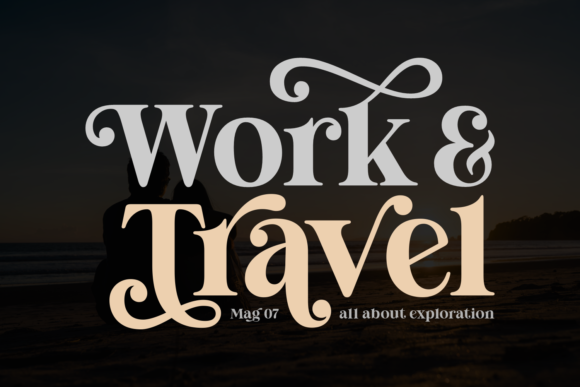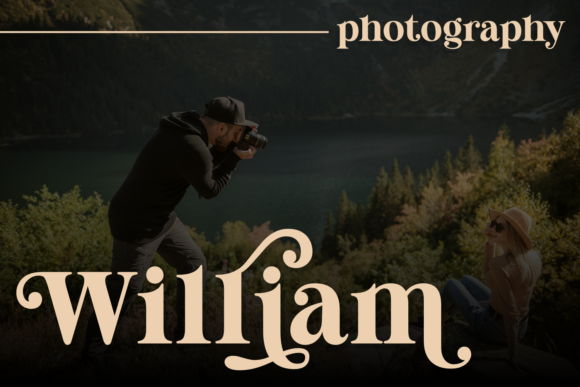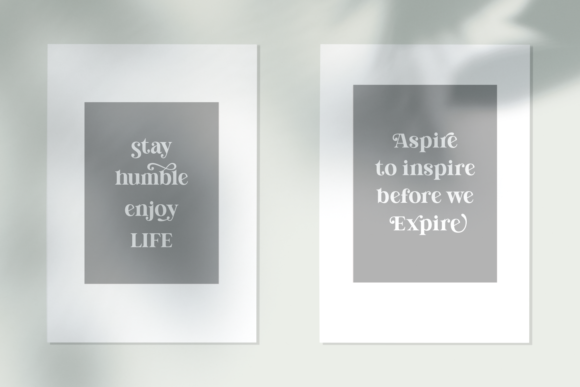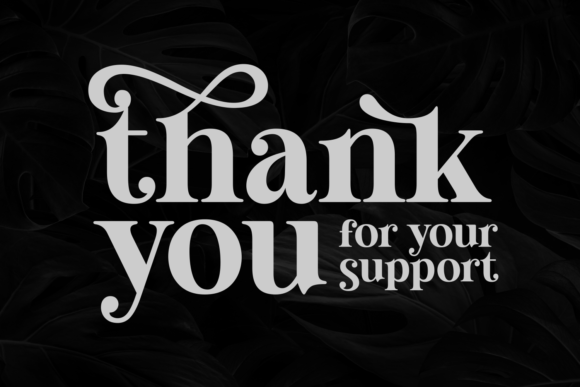
Introduction to Modesty Rogers Font
Imagine you’re working on a creative project, pouring your heart and soul into every detail, and then – the perfect font catches your eye. It’s the moment when everything comes together, and your design shines. For designers, finding the right font can be the difference between a good project and a great one.
That’s where the Modesty Rogers Font comes in – a stylish and gorgeous serif font that’s sure to elevate your design. With its high-quality design and PUA encoding, you can access all of the glyphs and swashes with ease, making it a valuable resource for any creative project. Whether you’re working on a design that requires a transparent background or a complex layout, the Modesty Rogers Font is a free download that’s sure to become a go-to design resource.
Key Features of Modesty Rogers Font
- Unique, elegant font style suitable for a variety of design applications
- Designed to be highly legible at resolutions up to 300 DPI
- Perfect for designers seeking a high-quality, free font for their next creative project
Honest Review: Modesty Rogers Font
I recently had the opportunity to work with the Modesty Rogers Font on a creative project, and I must say, I was impressed. This font is a high-quality design resource that offers a lot of versatility.
- ✨ The font’s elegant and vintage aesthetic makes it perfect for projects that require a touch of sophistication.
- ✨ The font is highly legible, even at small sizes, making it ideal for body text or headlines.
- ⚠️ The font’s transparent background may not work well with certain design elements or backgrounds.
- ⚠️ The font may not be suitable for projects that require a modern or edgy look.
Overall, I was impressed with the Modesty Rogers Font. It’s a great addition to any designer’s toolkit, and its free download option makes it a valuable resource for designers on a budget. I would definitely recommend it for creative projects that require a touch of elegance and sophistication.
How to Use Modesty Rogers Font
Tips for Getting the Most Out of Modesty Rogers Font
Use the Modesty Rogers Font on a transparent background to create a clean and elegant design. Experiment with different font sizes and styles to add visual interest to your project.
The Modesty Rogers Font is ideal for use in creative projects such as wedding invitations, social media graphics, and business cards. Its high-quality design makes it a great choice for a variety of applications.